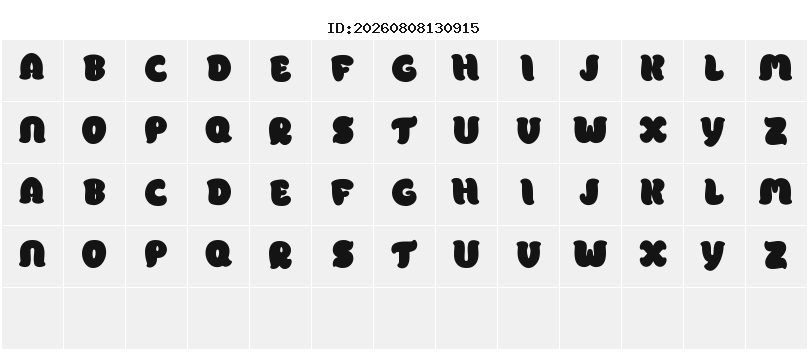
Pomporri Demo Preview
• Font Name: Pomporri Demo
• Font Style: Book
• Font ID: Pomporri Demo
• Full Font Name: Pomporri Demo
• PostScript Name: PomporriDemo
• Character Count: 57
About Pomporri Demo.ttf
Pomporri Demo.ttf is a modern, elegant sans-serif font designed for ultimate readability and visual harmony. Perfect for branding, headlines, web design, and print materials.